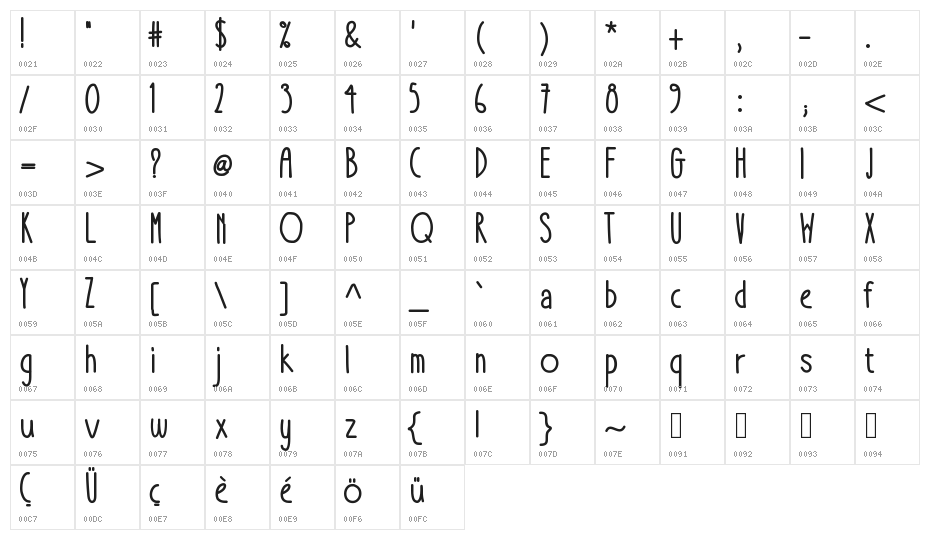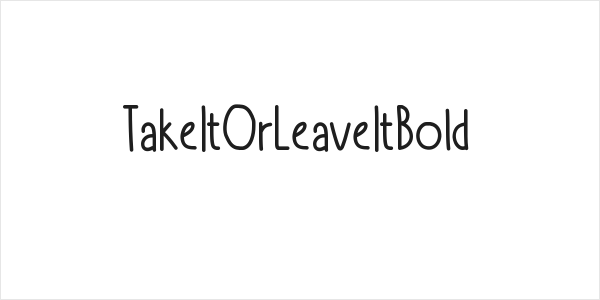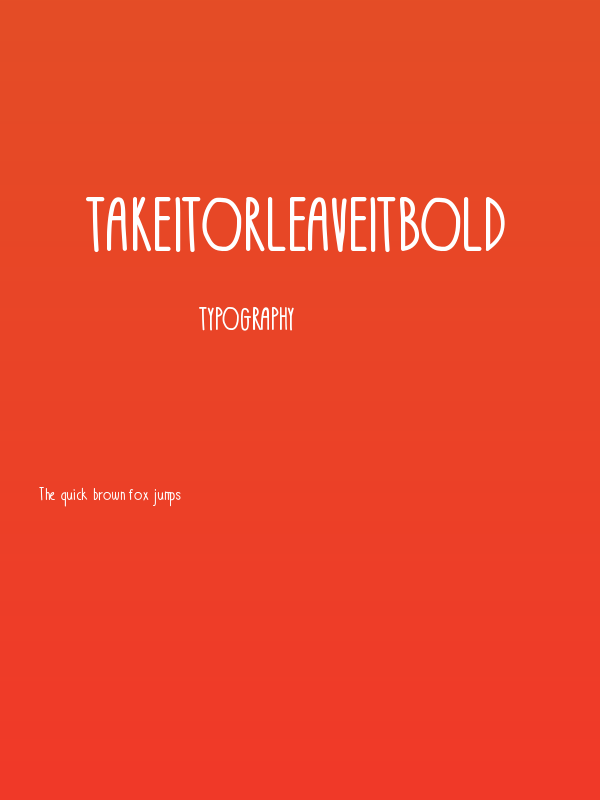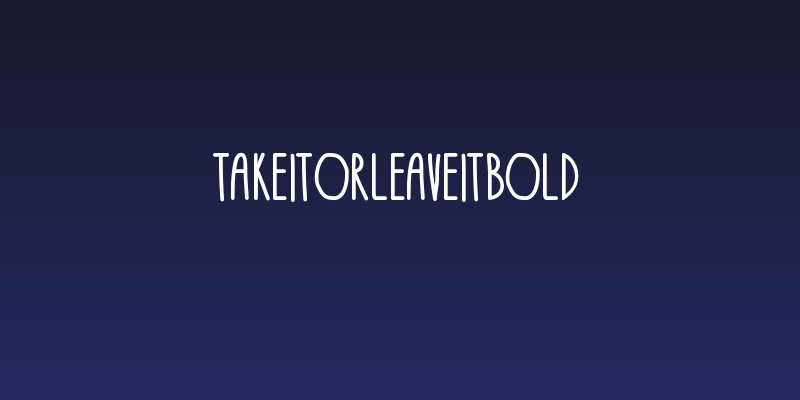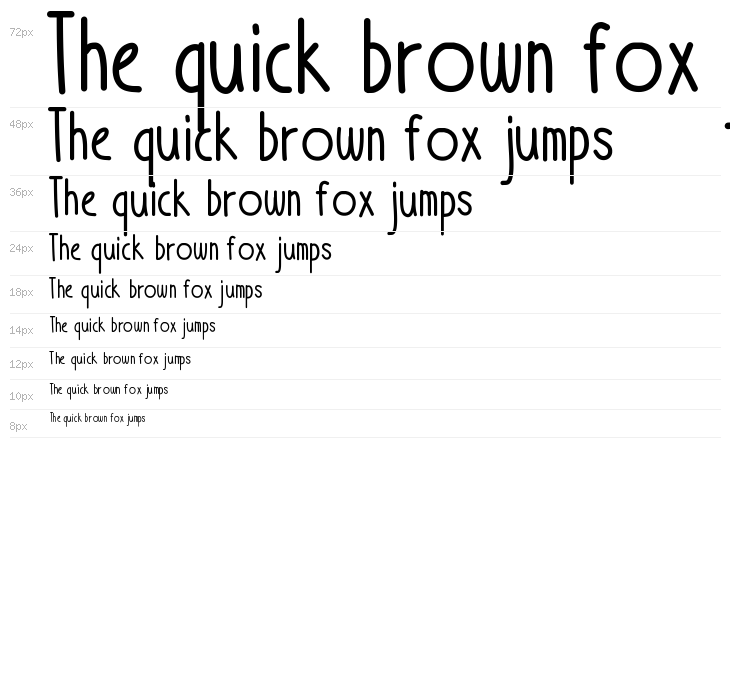
TakeItOrLeaveItBold Font
TakeItOrLeaveItBold Description
This font features a playful and informal style with rounded edges and a hand-drawn appearance. The letters are tall and narrow, giving it a unique and quirky look. The uppercase and lowercase letters maintain a consistent style, with smooth curves and a slightly irregular baseline that adds to its charm. The numbers and special characters follow the same design principles, ensuring a cohesive look across all glyphs. This font exudes a friendly and approachable vibe, making it suitable for creative and casual applications.
| Proposed Projects | Ideal for children's books, greeting cards, playful branding, and creative posters. |